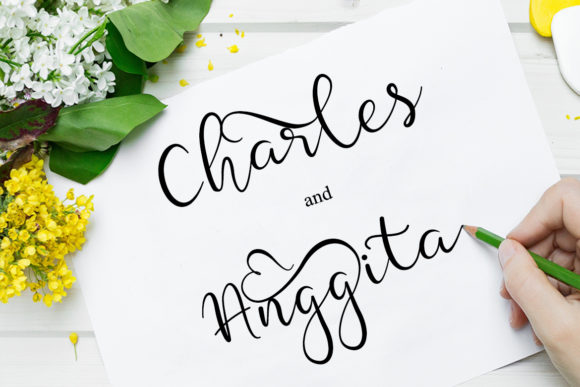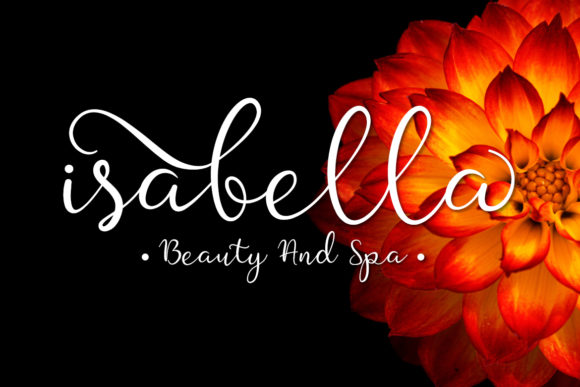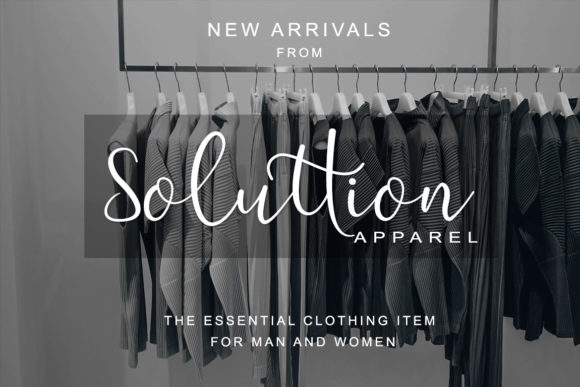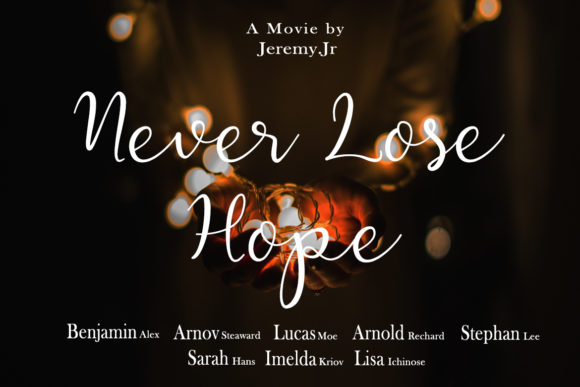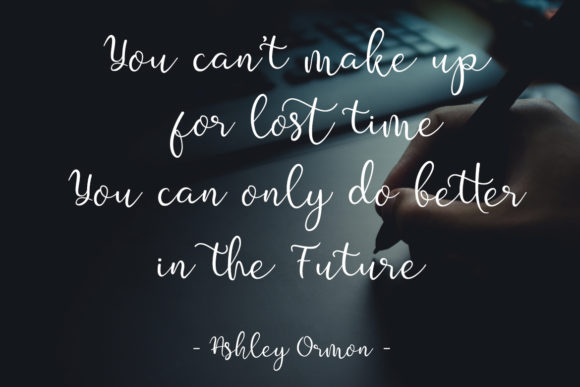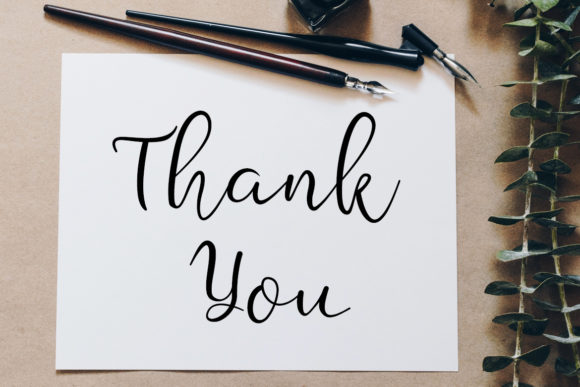
Introduction to Silver Soul Font
The Silver Soul is an amazing calligraphy font.
It has an elegant feel and is perfect for logos, wedding invitations, furniture design, signatures, branding, watermarks, and much more .
Key Features of Silver Soul Font
Why Choose Silver Soul Font?
Silver Soul Font offers exceptional quality and versatility, making it a valuable addition to your design toolkit. Whether you’re creating for personal projects or commercial use, Silver Soul Font delivers professional results.